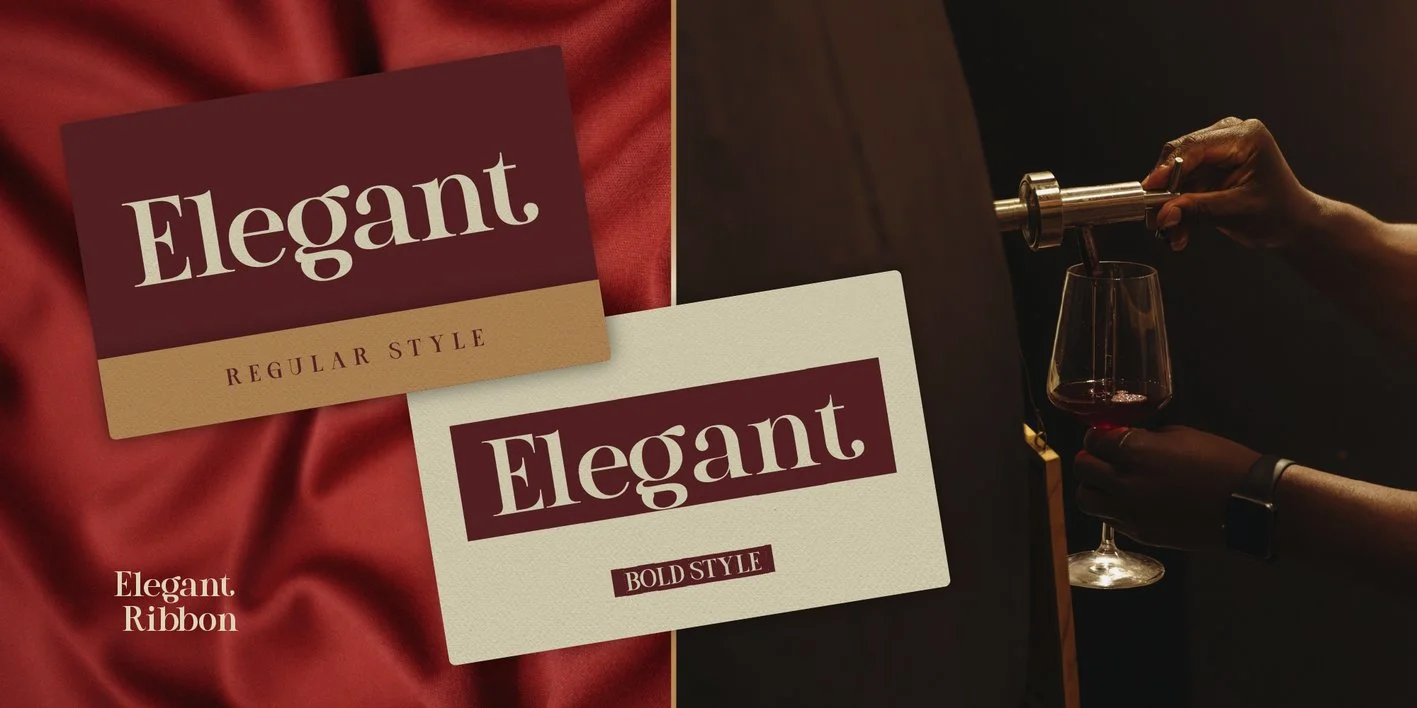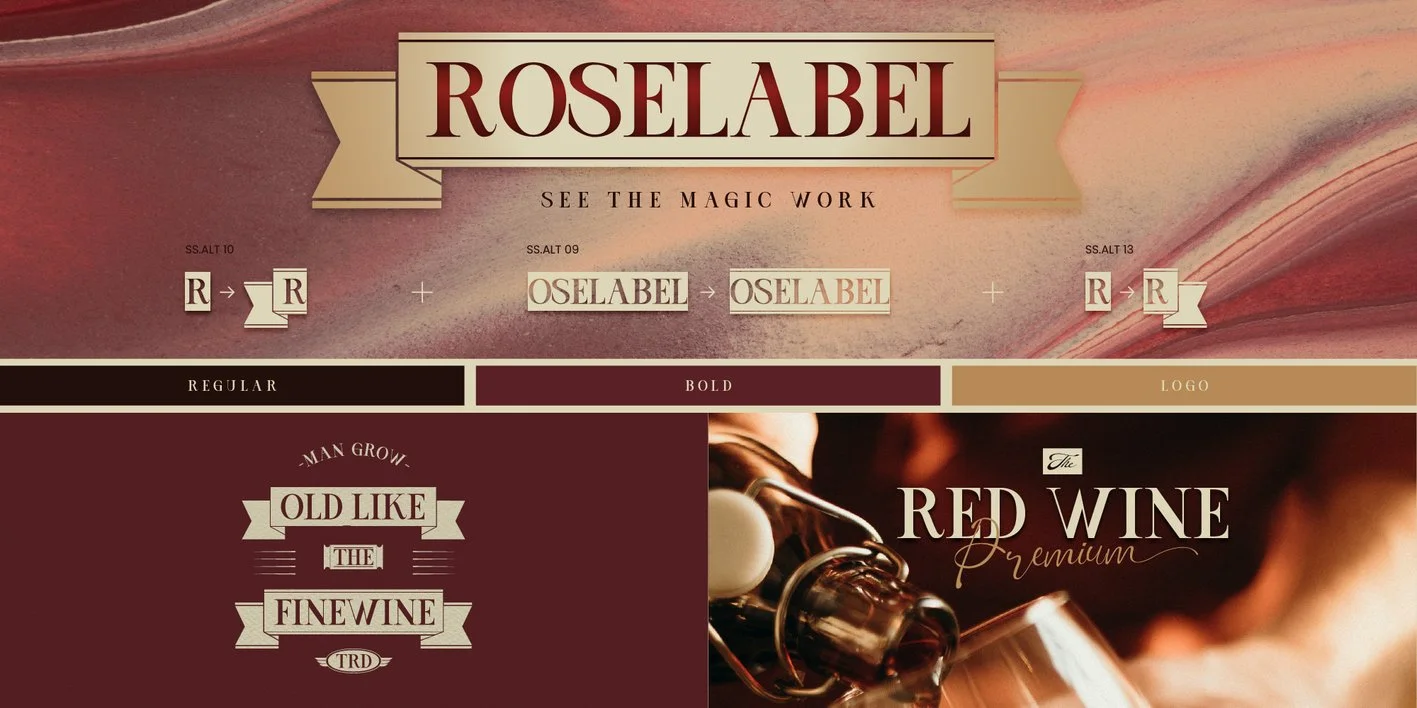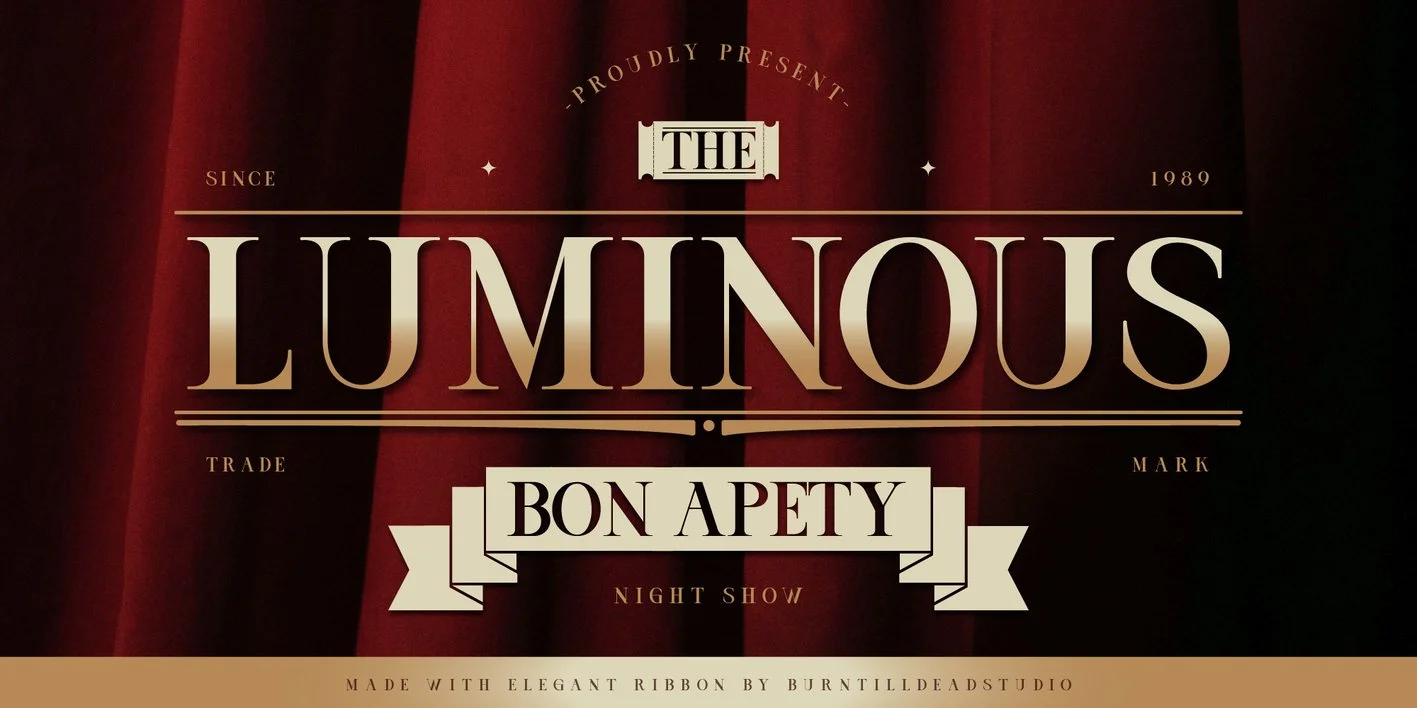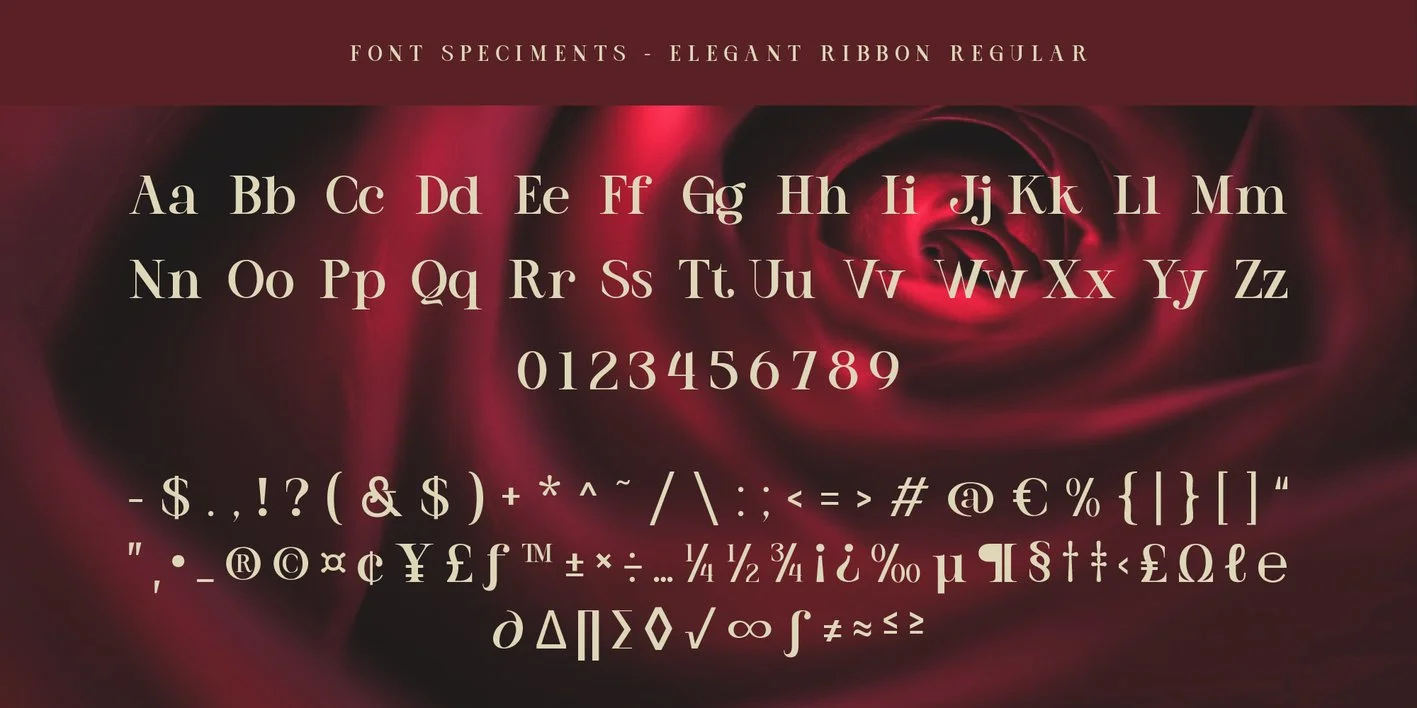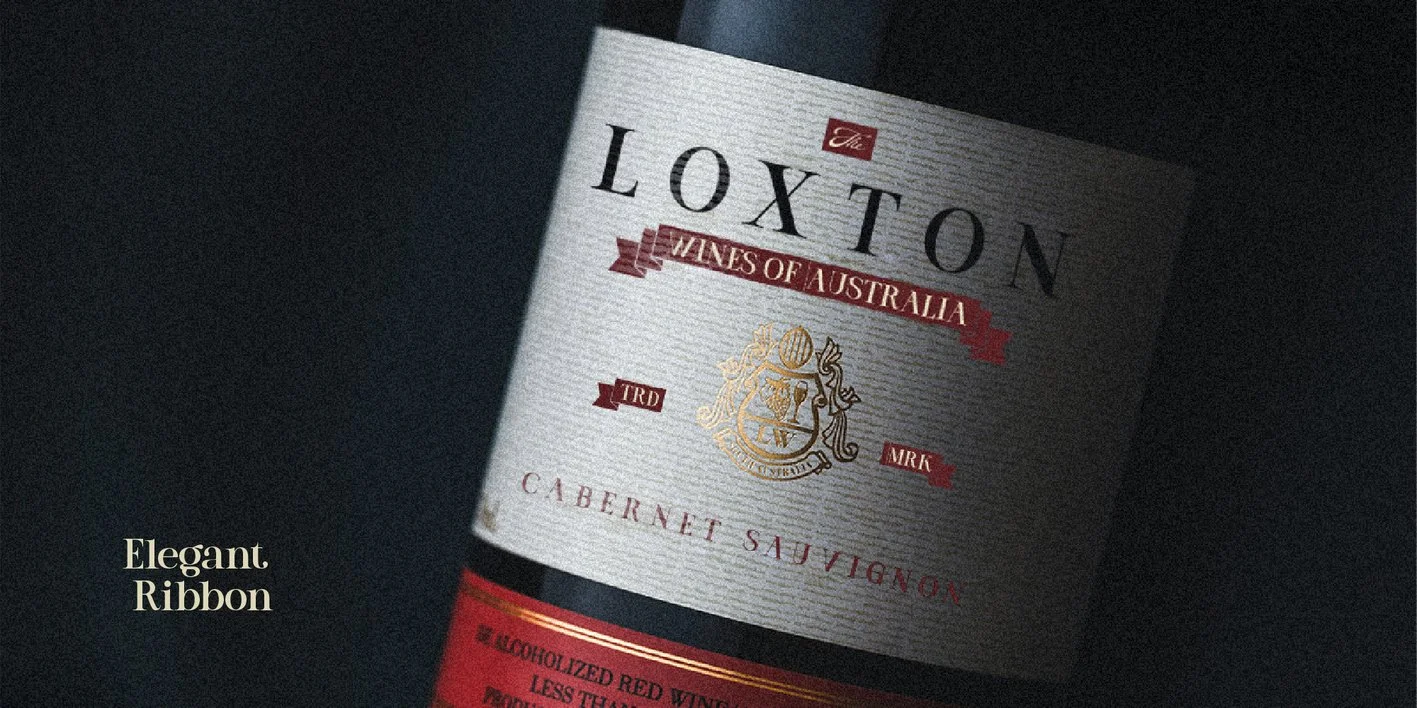
Elegant Ribbon Font
Few typefaces manage to balance consistent type colour across continuous text with genuine day-to-day practicality. Elegant Ribbon is one of them. The typeface brings a versatile sensibility to a broad range of creative disciplines, with visual harmony and precise spacing that holds up whether the work is print-first or screen-first.
In practice, Elegant Ribbon proves particularly effective for poster creation, brand identity systems, packaging design, environmental graphics, web design. Designers reaching for it find that the type decisions feel resolved rather than laboured — a useful quality when client timelines are tight.
The range of applications extends to editorial layouts, advertising campaigns, annual reports, logo design. That breadth is deliberate: the proportions and spacing were stress-tested across a wide range of mock briefs before the typeface was finalised.
Independent studios handling packaging and editorial work find Elegant Ribbon a reliable choice for projects that demand both personality and restraint. The design avoids the self-conscious quirkiness that dates quickly, settling instead for considered distinctiveness that holds up over time.